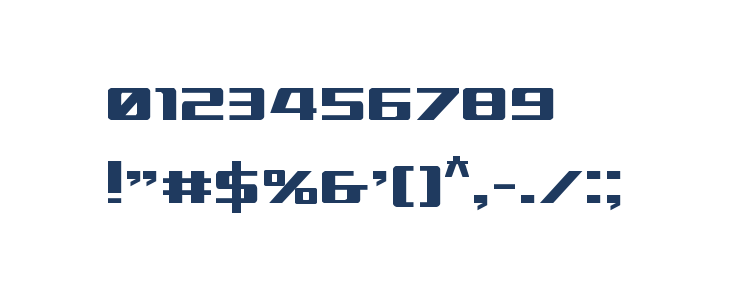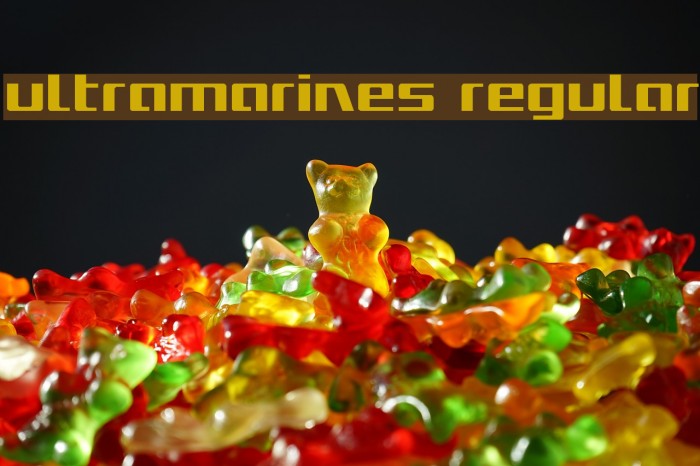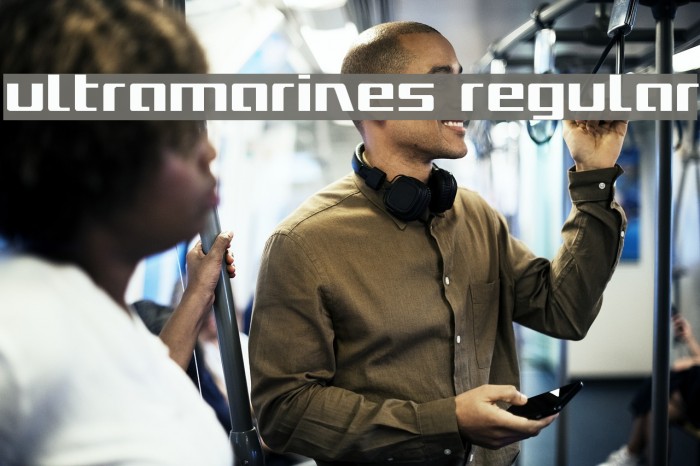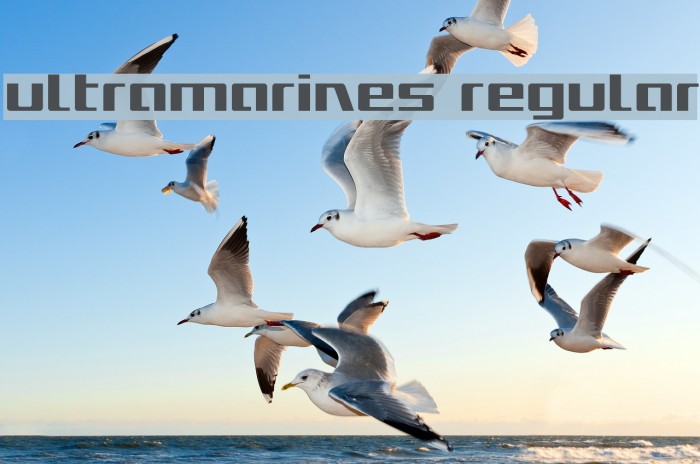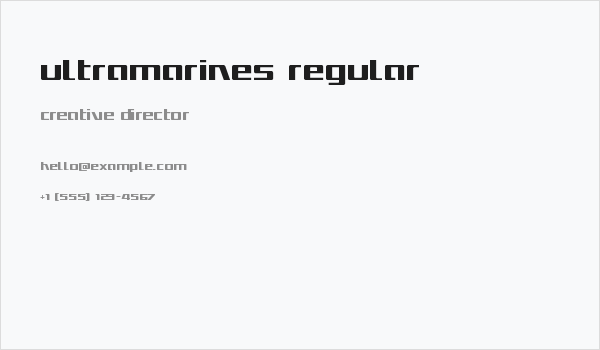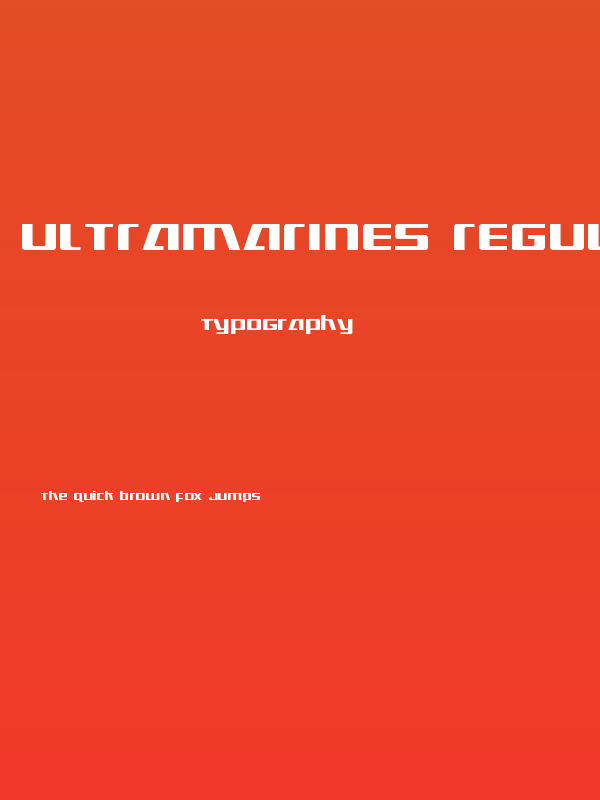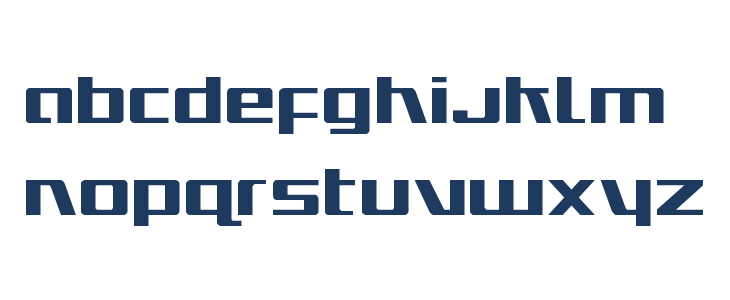
Ultramarines Regular Font
Ultramarines Regular Description
This font features a bold and geometric design, characterized by its strong, angular lines and modern aesthetic. The uppercase and lowercase letters maintain a consistent width, creating a uniform appearance. The numerals and special characters are designed to complement the overall style, with a focus on clarity and impact. The font's structure is clean and precise, making it suitable for projects that require a contemporary and assertive look.
| Proposed Projects | Ideal for branding, posters, headlines, and digital media where a strong, modern presence is desired. |